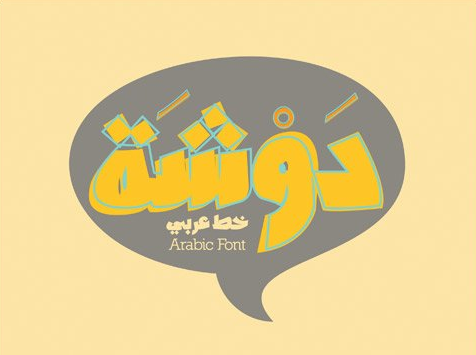
Dawshah – Arabic Font 25599
Dawshah Arabic Font 25599
Dawshah is an Arabic font exclusively made for casual titling. It is heavy and bulky and able to communicate textual contents loudly with a style. The word “Dawshah” in Arabic has few meanings between making noise and unseeing. The font is suitable for creative projects including logos, T-shirt typography, summer events, and book covers.